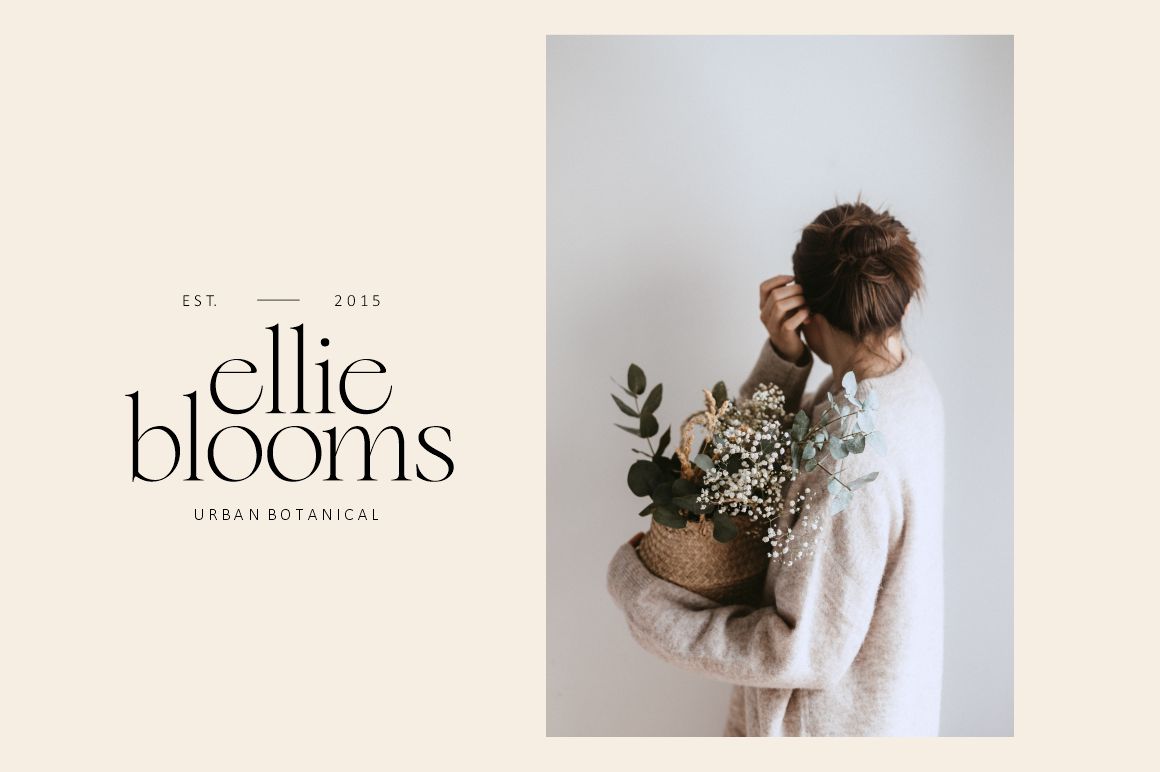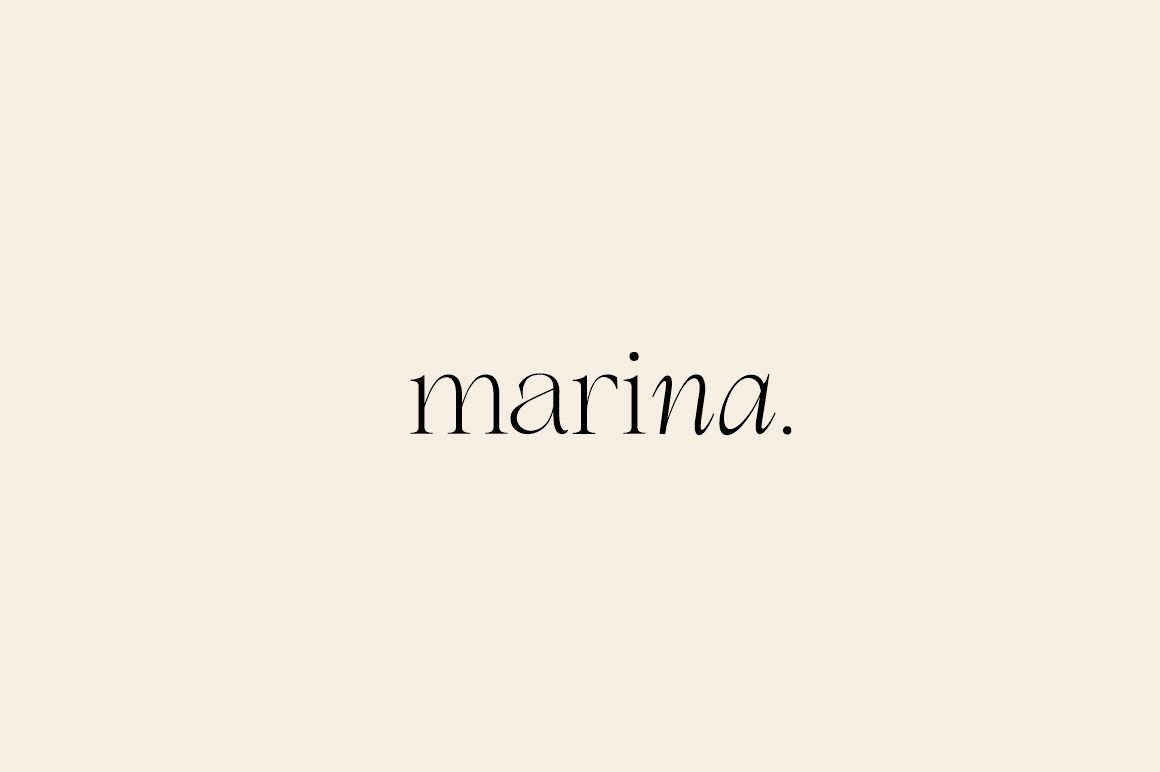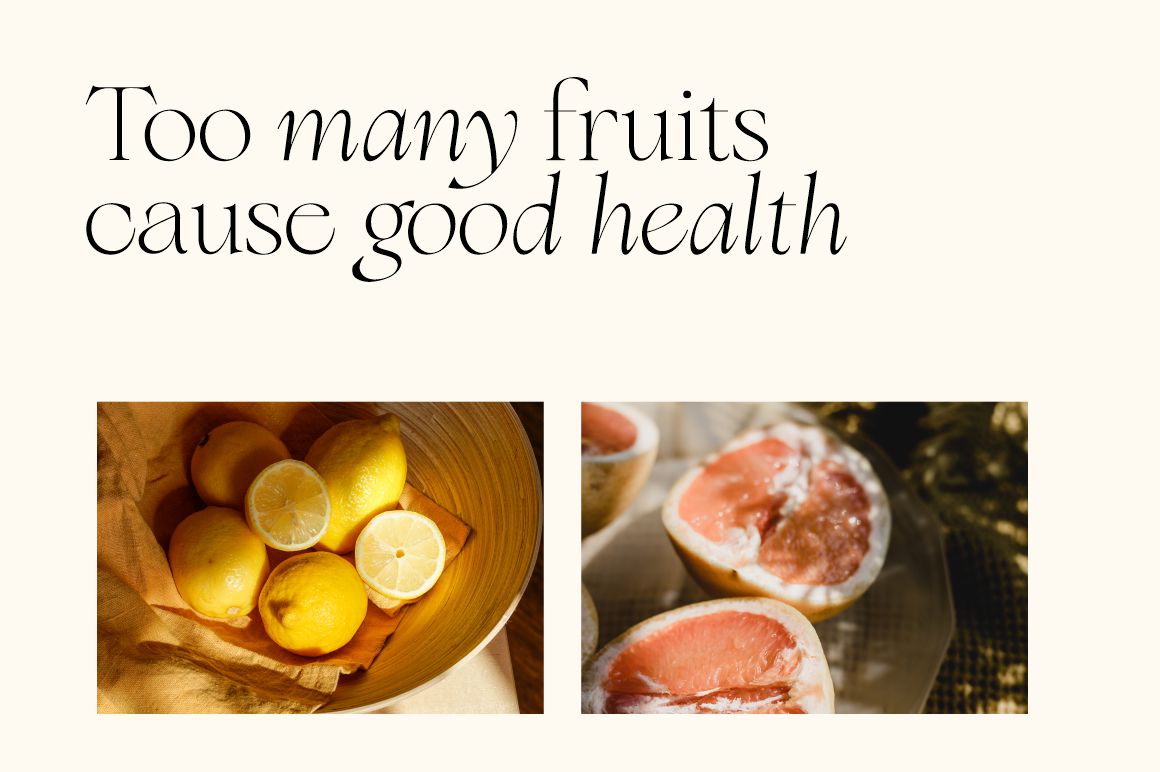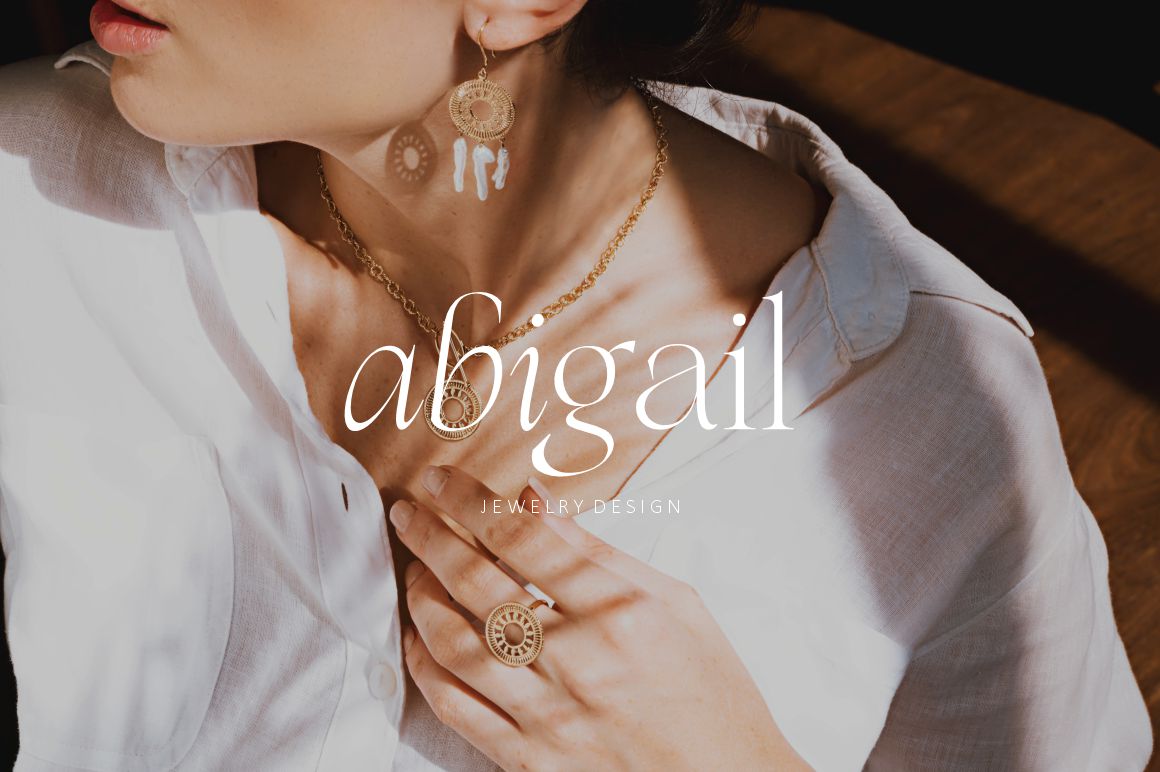
Floreal – Elegant Serif Font is an elegant, modern and classy serif font with fashionable touch. That includes two styles : regular and true Italic. This font includes alternates and ligatures, with them you can make your project more elegant and unique.
Floreal is perfect for corporate identities, websites, publications, titles, books, magazines, business cards, logos, product labels, packaging, or any kind of advertising purpose.